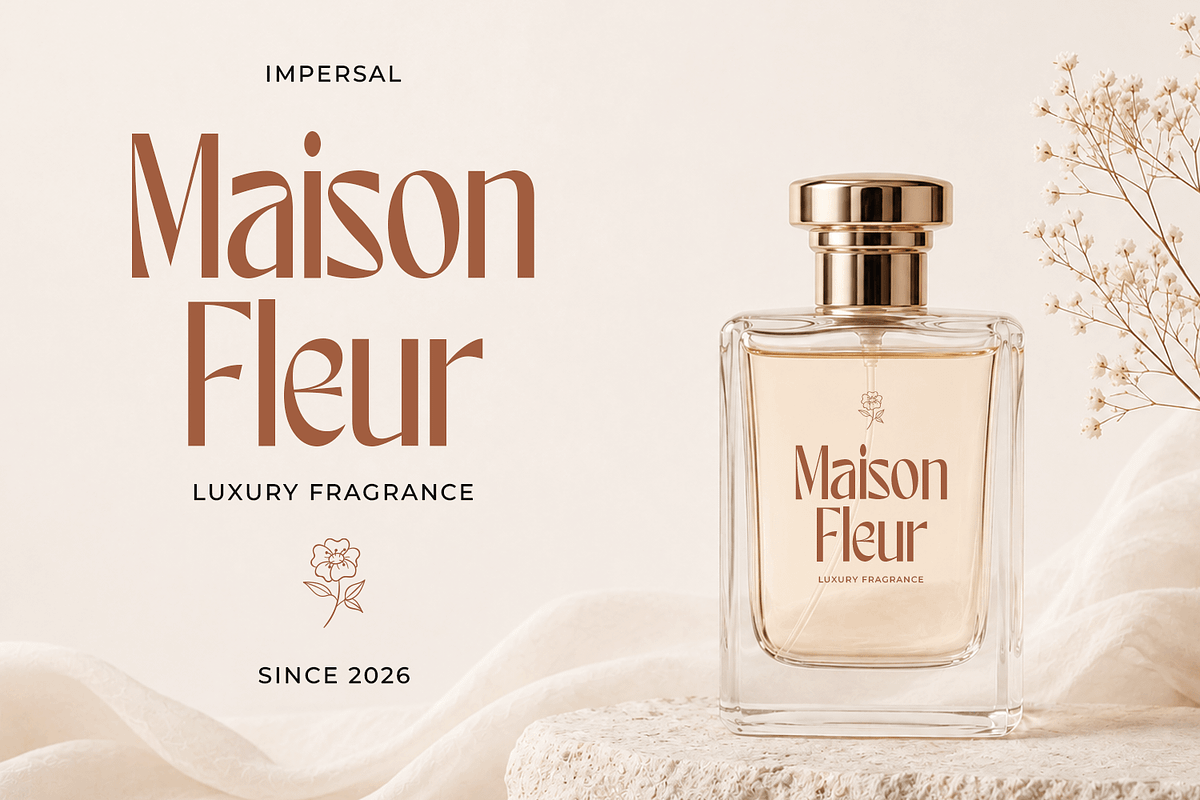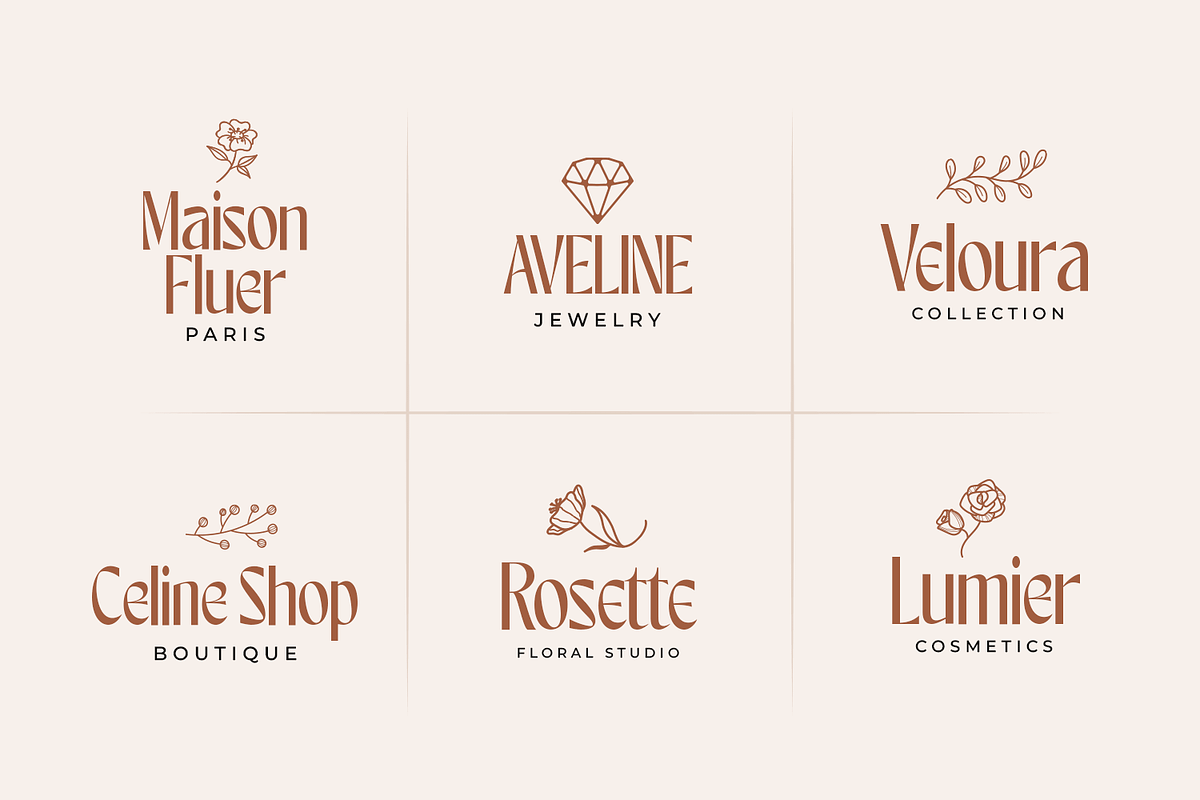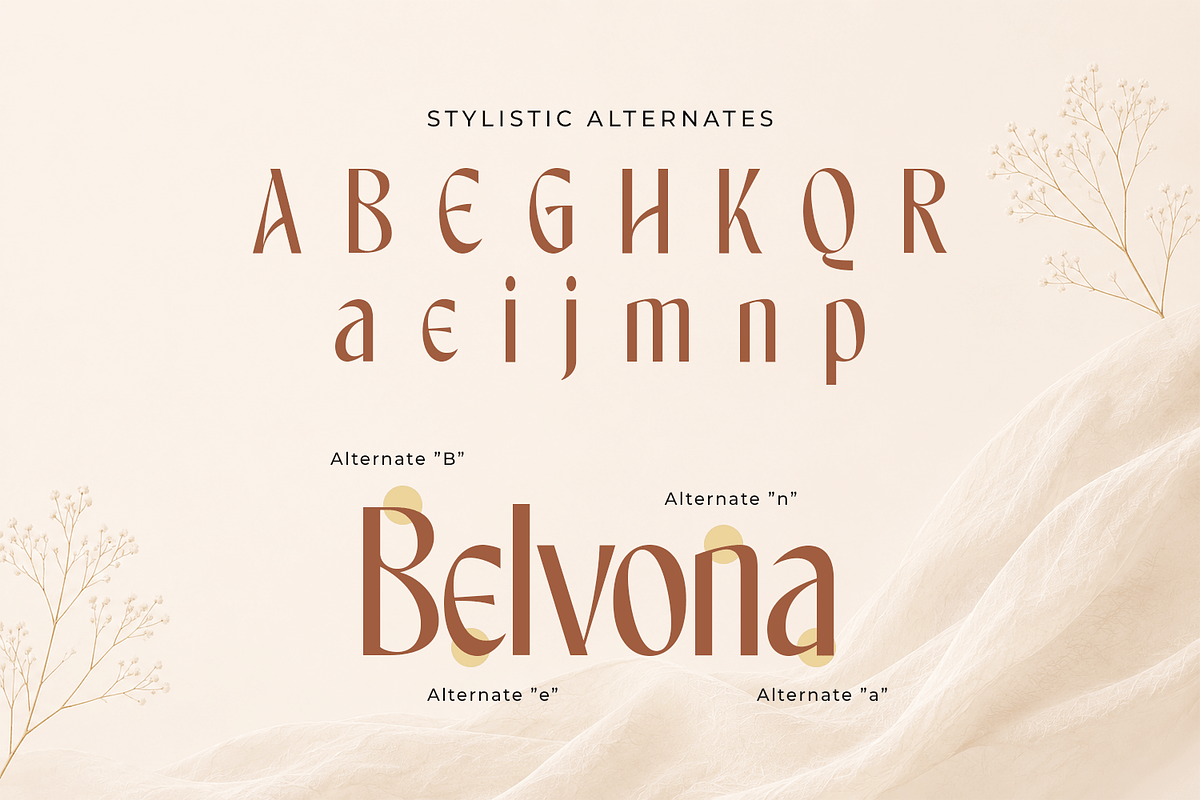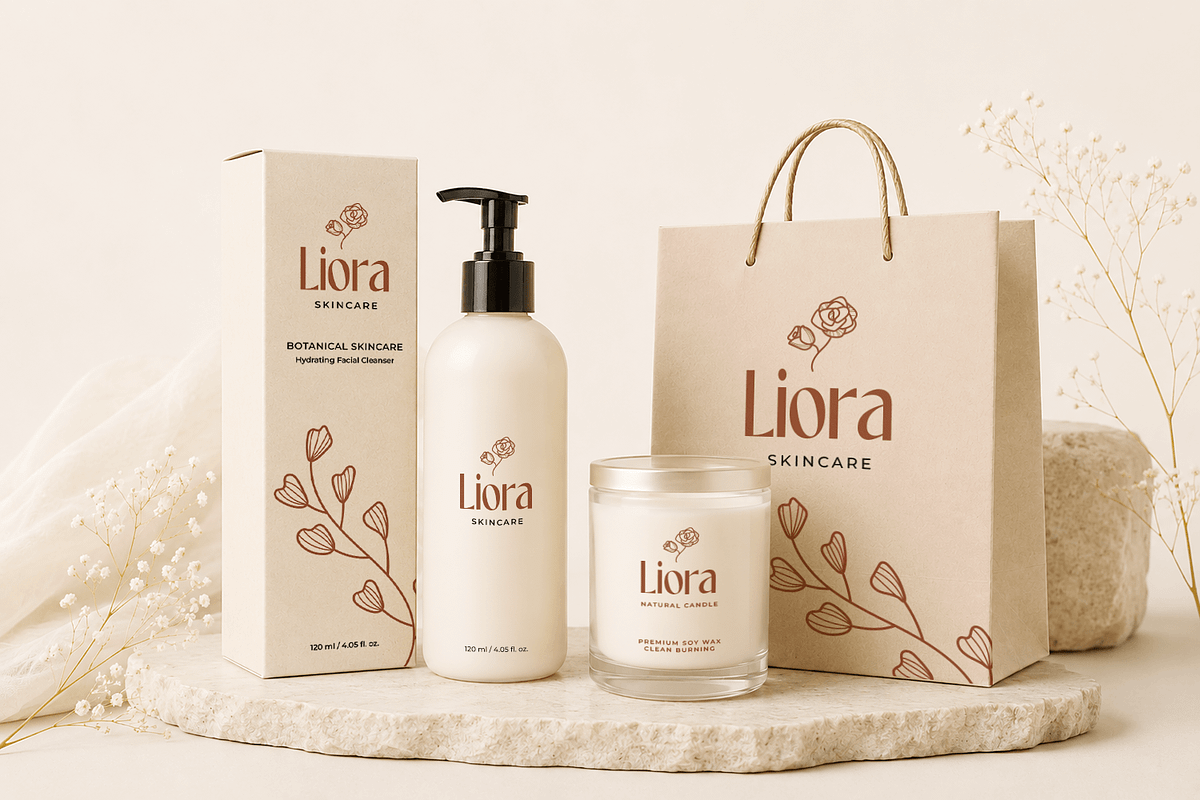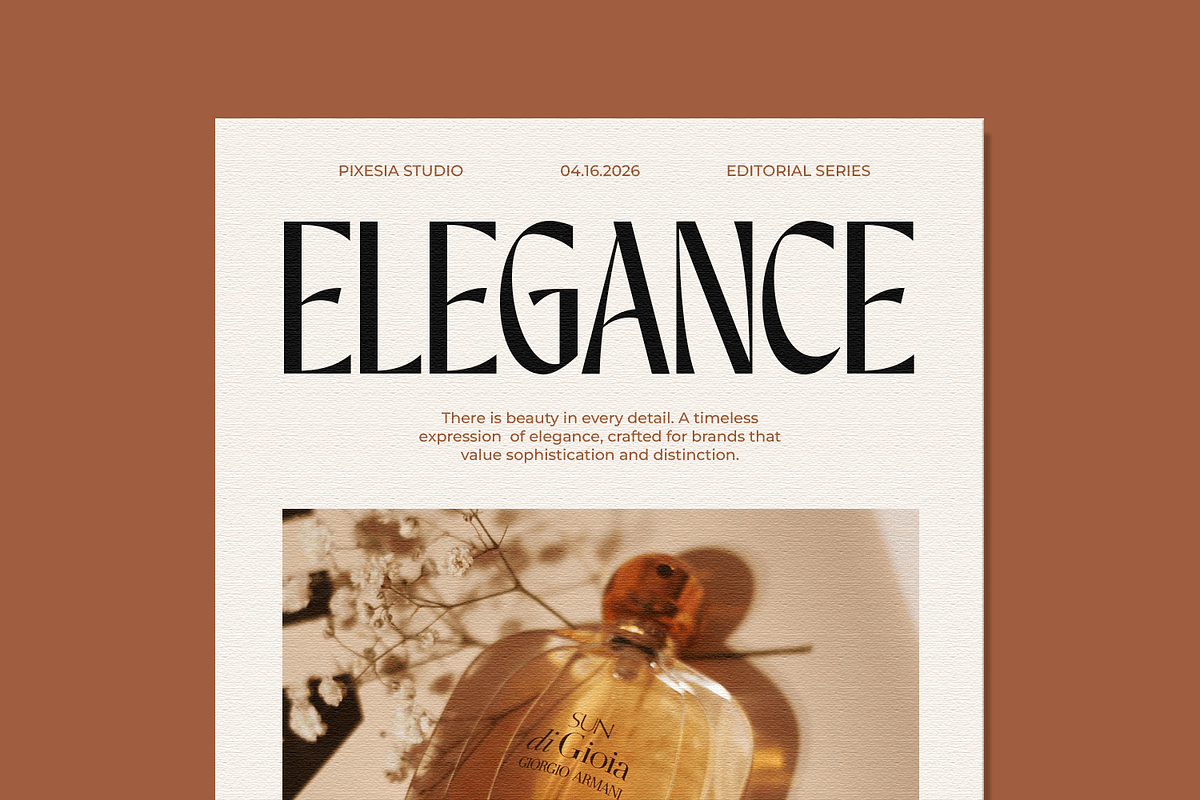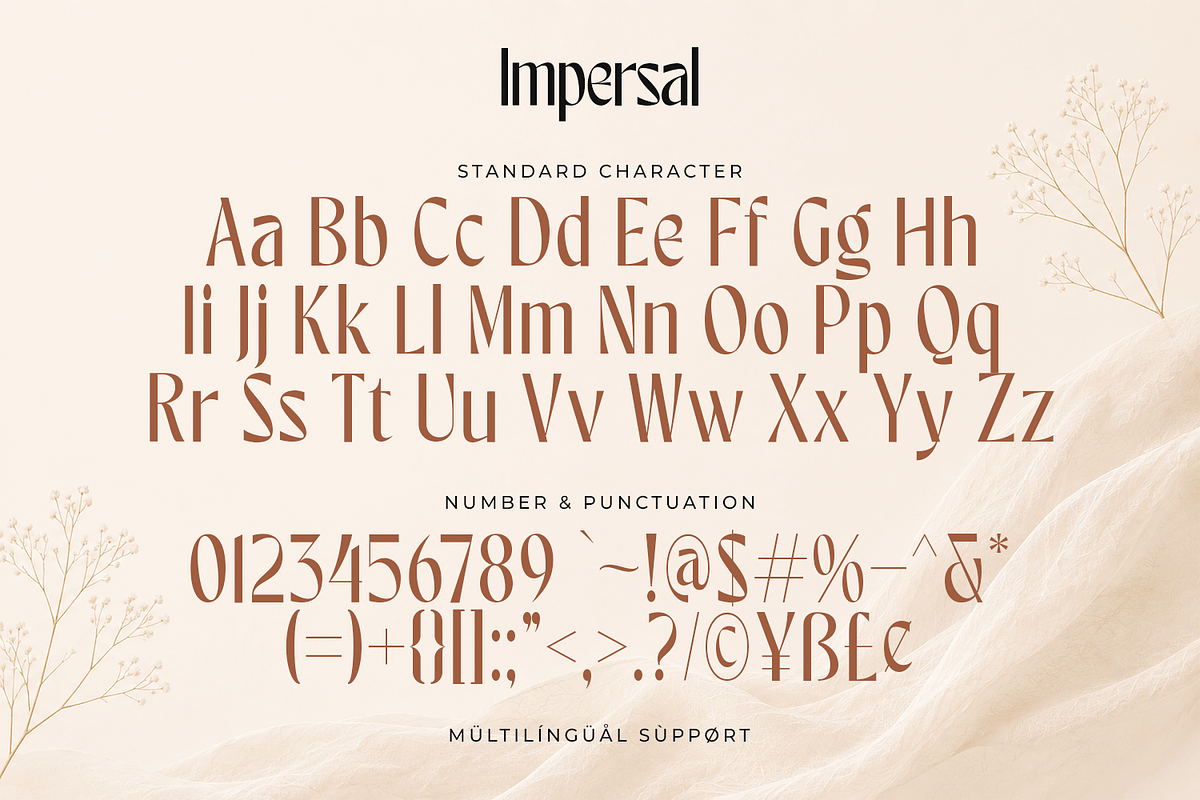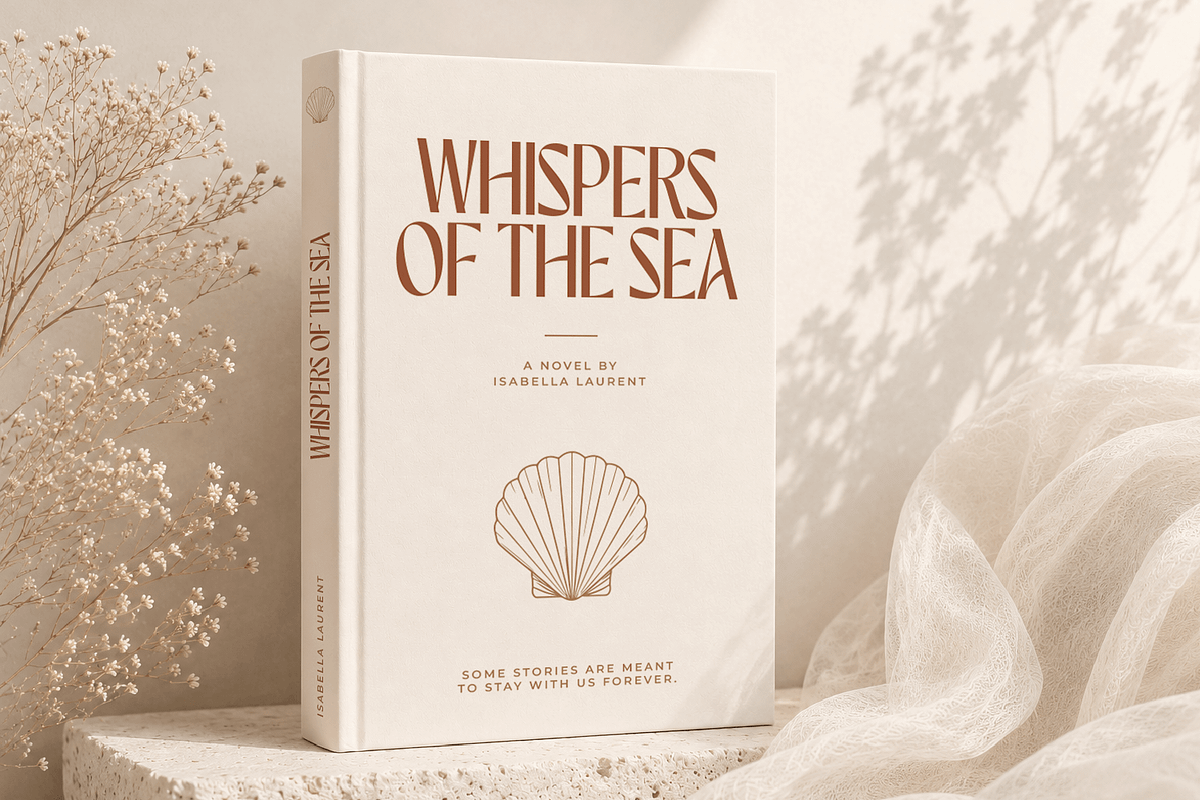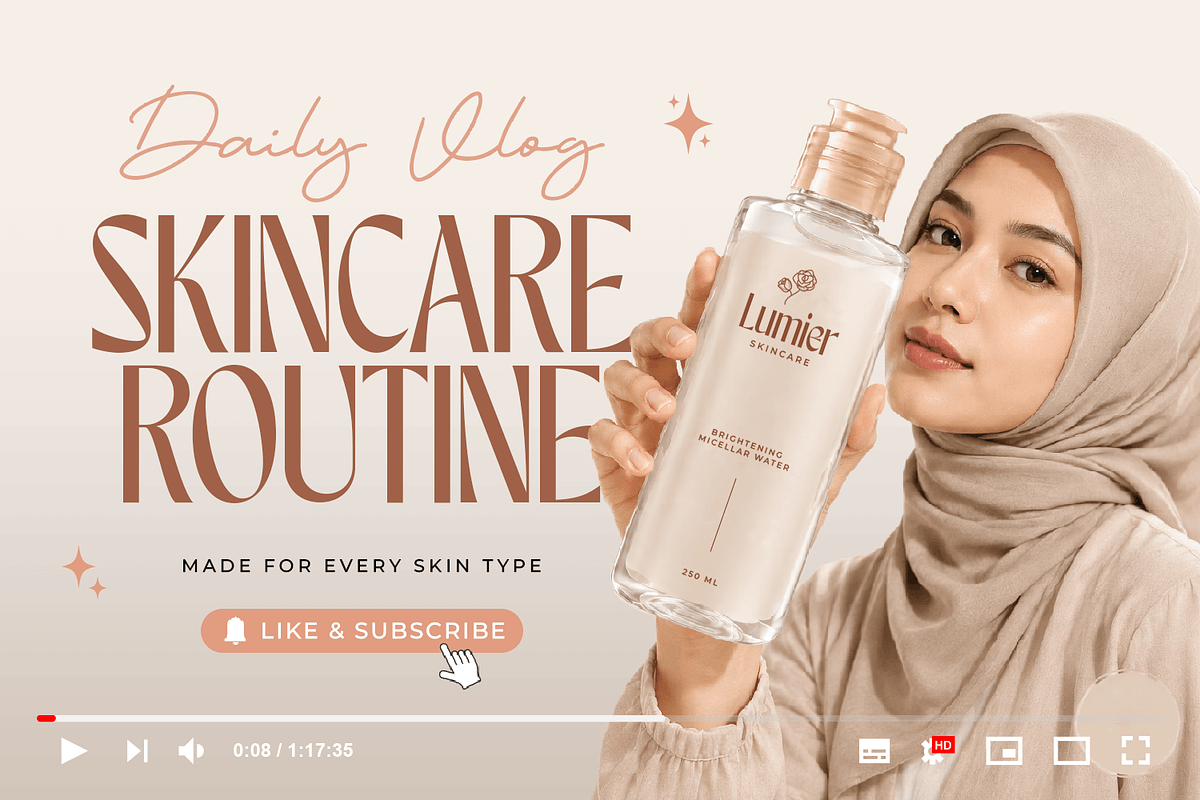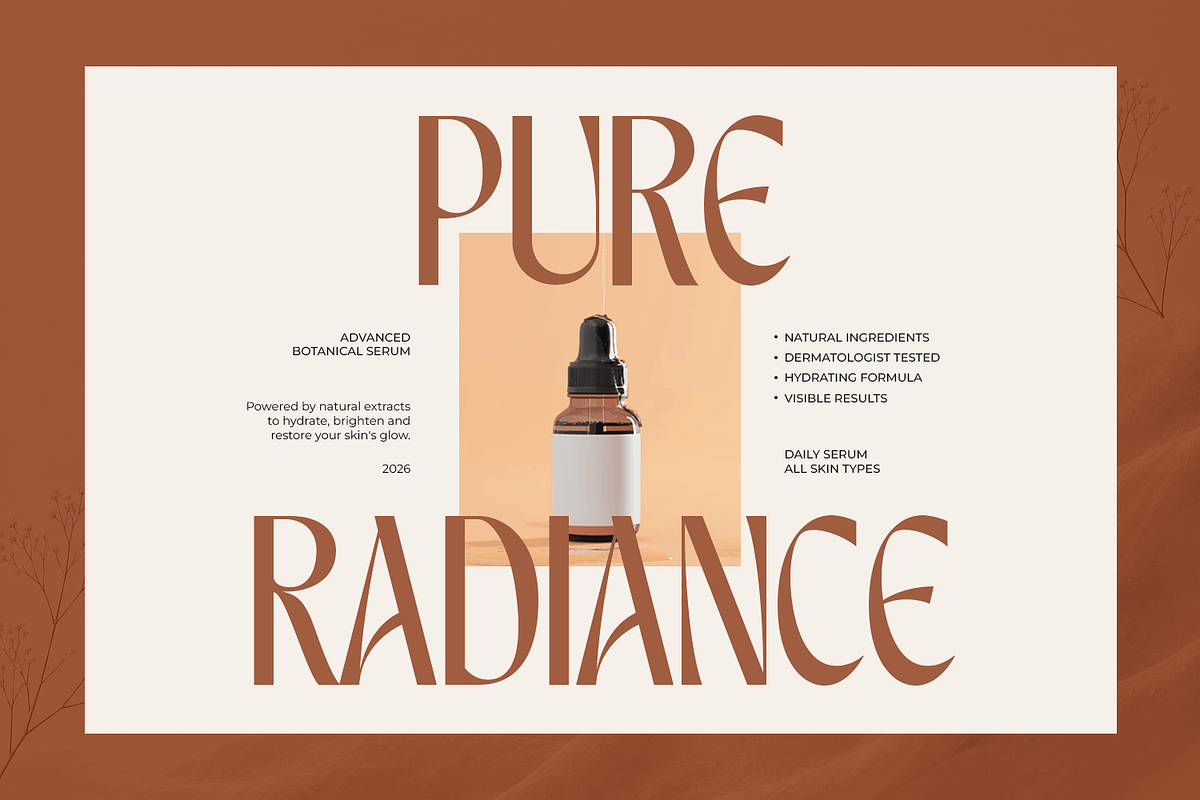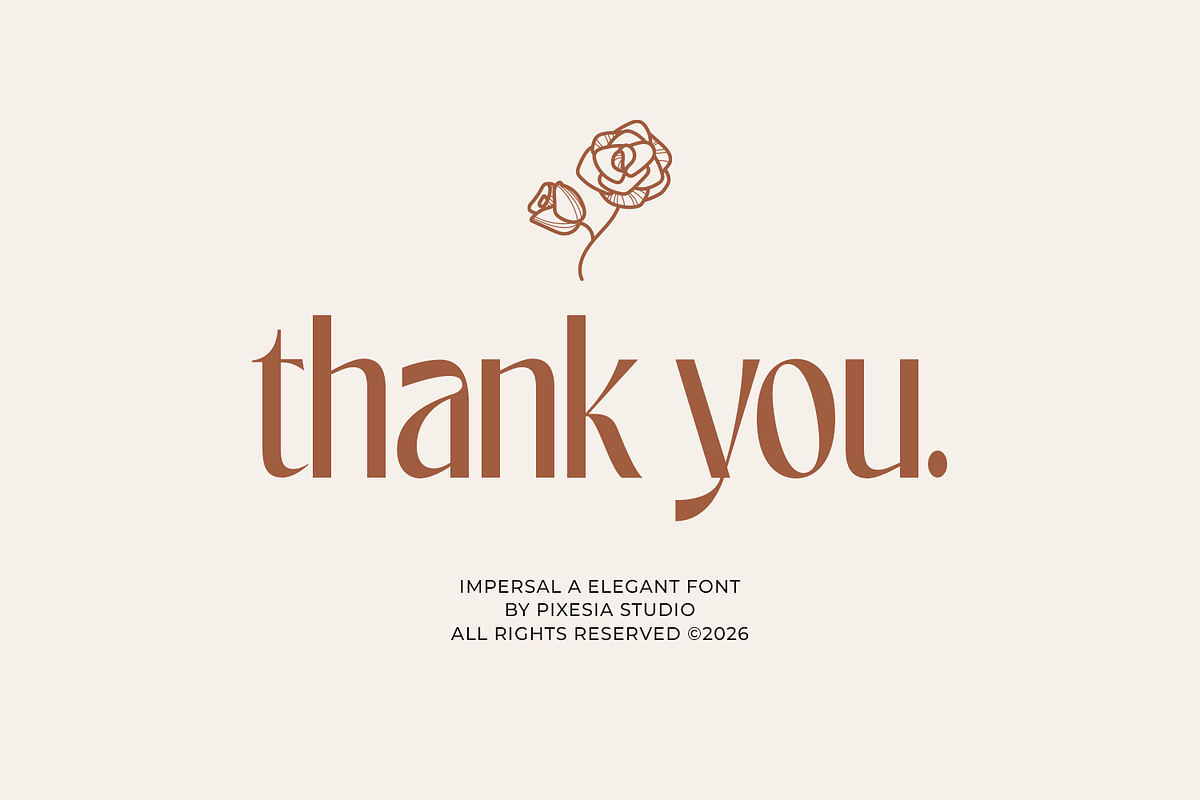
Impersal - Bold Condensed Font
Introducing Impersal - Bold Condensed Font
Impersal is an elegant bold condensed sans serif typeface crafted to bring sophistication, individuality, and timeless beauty to modern design. Featuring refined curves, distinctive letterforms, and graceful contrast, this font combines classic typographic elegance with a contemporary fashion-forward aesthetic. Its unique details create a sophisticated and memorable appearance that instantly elevates any visual presentation.
Perfect for branding, logos, fashion campaigns, editorials, magazine layouts, beauty packaging, wedding stationery, and premium marketing materials, Impersal delivers a refined yet distinctive presence. Whether you're building a sophisticated brand identity or designing high-end visual content, this typeface provides the perfect balance of elegance, character, readability, and timeless appeal.